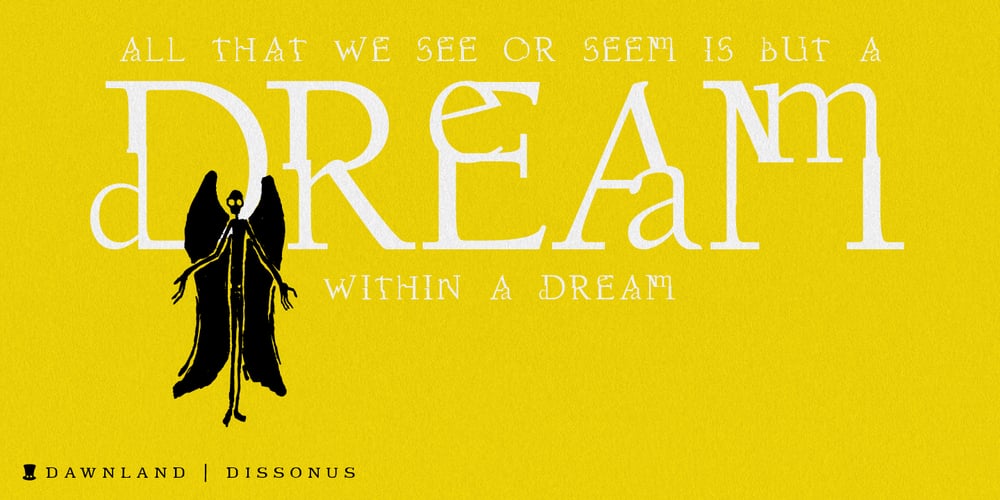
Dissonus
Dissonus font
Dissonus Font Family was designed by Daniel Viberg and published by Dawnland. Dissonus contains 1 styles and family package options. DisSonus X is ideal for: Initial characters – give your text an unparalleled facelift! Headlines – create a unique look for your posters, event graphics, book covers & music/media/game packaging. Preamble – reanimate the introduction… The bread text on the gallery images is written in Nihil. DisSonusX was revised 2012 and now hold a full character set of basic english/latin letters and west european diacritics! Note that there are no digits in this font. Use a fitting antiqua such as Berkeley Book or (insert your favourite version here) Garamond.